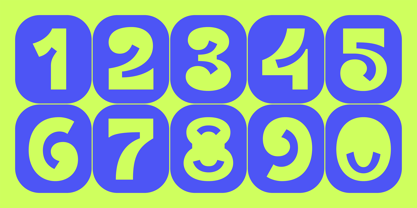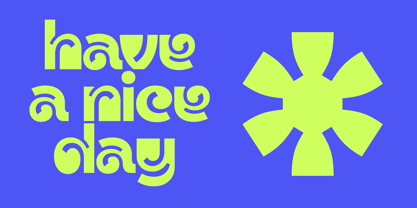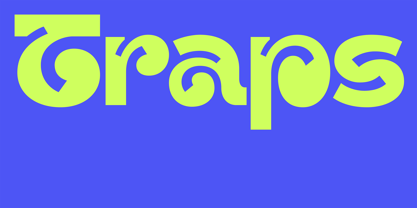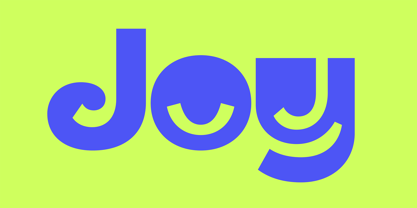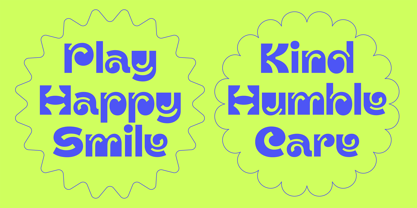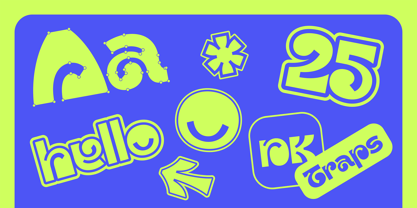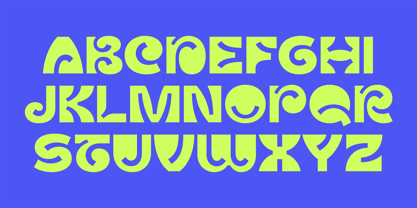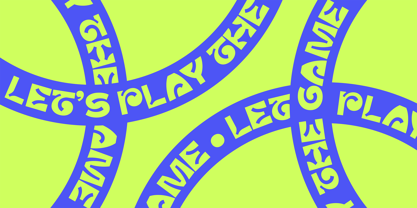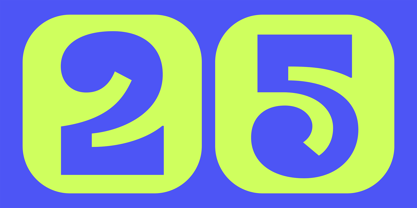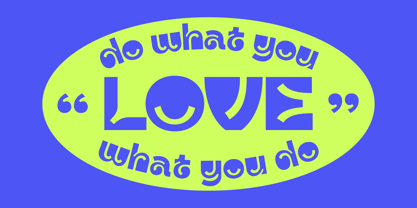
DK Traps
by DKType Foundry
The DK Traps Font Family was designed by Darman Kadir and published by DKType Foundry. DK Traps contains 1 styles. More about this family
Get Trapped in a Fun Way. Think again about what a "trap" looks like. DK Traps isn’t about being stuck, it’s about being pulled into a world of unexpected fun. By turning functional, dynamic ink-traps into a bold design feature, this typeface transforms a technical detail into a truly playful visual experience. Designed to be an invitation to the unexpected, DK Traps captures the thrill of taking a turn and discovering a vibrant world you never knew existed. Bold, quirky, and full of character, it is a typeface that invites you to stay a while and get lost in a fun, lively atmosphere. With its heavy curves and dynamic personality, DK Traps proves that the best kind of design is one you can get lost in. It’s not just a typeface, it’s a fun journey in every stroke. Ready to get trapped in the fun? Dive into DK Traps.
Designers: Darman Kadir
Foundry: DKType Foundry